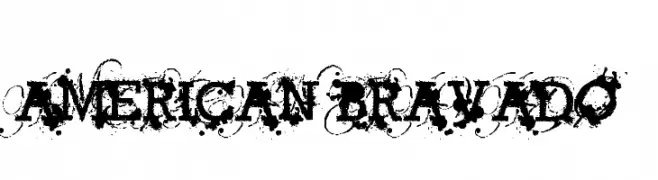
A bold, geometric font with a futuristic and industrial aesthetic.
A decorative font featuring intricate scientific illustrations within each character.
A lively handwritten font with fluid, continuous strokes and a playful aesthetic.
( Adrián Flores )
A scratchy, hand-drawn font with an edgy, artistic style.
A bold, jagged font with a chaotic, energetic style.
A bold, hand-drawn font with a sketch-like, crosshatched texture.
A casual, handwritten font with uneven strokes and a playful, personal touch.
( Fonts by Andrus Peegel )
A bold, distressed font with a hand-drawn, textured appearance.
( Fonts by Heather T. - oohlalaartsy.blogspot.com )
A distressed, weathered font with a nautical, vintage feel.
A bold, geometric font with a modern and futuristic style.
A bold, italicized font with a modern, dynamic style.
A bold, modern italic font with geometric shapes and dynamic style.
A modern, hollow geometric font with a futuristic style.
A modern, hollow, inverse font with geometric shapes and bold outlines.
A bold, geometric font with a modern and futuristic style.
( Fonts by Mochamad Nasiruzzaman )
A bold, playful handwritten font with thick, rounded strokes.
A graffiti-inspired font with jagged, angular lines and a rebellious, edgy style.
A bold, decorative font with a hand-drawn, textured style.
( Fonts by Paul Reid - tracertong.co.uk )
A bold, stencil-style font encased in circular targets, offering a rugged and industrial look.
( Daniel Navarro Rodriguez )
A bold, striped font with geometric shapes and a dynamic lightning bolt motif.
A bold, geometric font with artistic negative space and strong visual impact.
A cursive font with elegant loops and swashes, perfect for creative projects.
( Didik Pratikno - joanatype.daportfolio.com )
Bicycle-themed decorative font with each glyph as a different bike or scooter.
( Sergeant Swierq - sergeantswierq.deviantart.com/ )
A bold, geometric font with a futuristic and technical design.
A playful, handwritten font with smooth curves and a whimsical style.
An elegant script font with flowing, interconnected letters and artistic flair.
An elegant script font with flowing, cursive letters and a sophisticated flair.
A bold, distressed font with a grunge texture and rugged appearance.
( Fonts by Storytype Studio )
A bold, geometric font with a modern and impactful style.